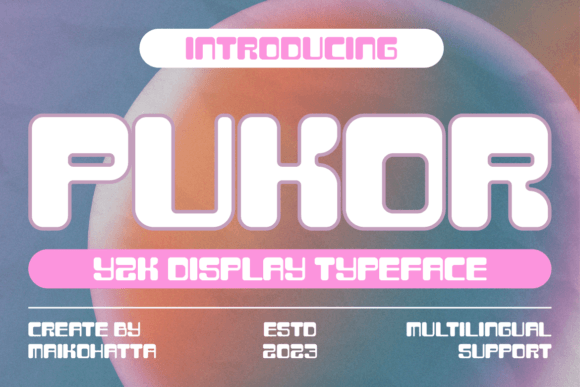
Journey back to the era of digital dreams and futuristic visions with Pukor, the font that embodies the Y2K aesthetic. Inspired by the technological marvels of the early 2000s, Pukor captures the essence of the millennium's fascination with technology and visual experimentation.
This font is a symphony of nostalgia, combining the sharp edges of old computer displays, the vibrant glow of neon lights, and the geometric precision of pixels. It's a visual tribute to the era that brought us the internet, the rise of digital art, and a sense of boundless possibility.
With Pukor, you can infuse your designs with the energy and optimism of the Y2K era. Create eye-catching logos that evoke the retro-futuristic vibes of the early 2000s. Design posters that transport viewers back to a time of technological wonders and digital exploration. Craft social media graphics that resonate with the nostalgia of the millennium generation.
Pukor is not just a font; it's a gateway to a bygone era, a time when the digital world held endless promise and the future seemed limitless. Download Pukor today and unleash the creative potential of the Y2K aesthetic in your designs.